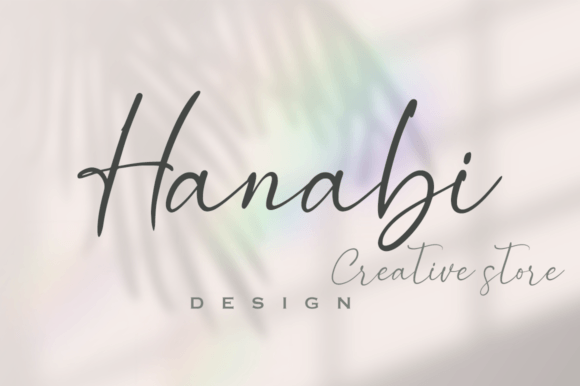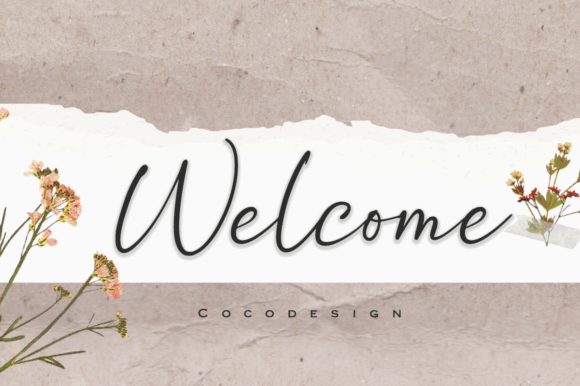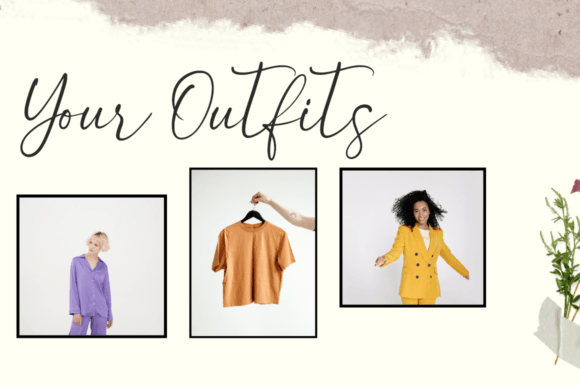
Introduction to Sherina Font
Imagine yourself in a quiet coffee shop, surrounded by the gentle hum of creative energy, as you search for the perfect font to elevate your next project. The hours tick by, and your eyes scan through countless options, but none seem quite right. That’s when you stumble upon the Sherina Font – a masterpiece of handwritten design that leaves you breathless.
This exquisite font is more than just a pretty face; it’s a design resource that will transport your creative projects to new heights. With its classy calligraphic influences and contemporary feel, the Sherina Font is the perfect blend of high-quality design and versatility. Whether you’re working on a free download or a paid project, this font is sure to make your work stand out.
With a transparent background and endless creative possibilities, the Sherina Font is an invaluable asset for designers looking to take their work to the next level.
Key Features of Sherina Font
- High-quality, elegant design suitable for creative projects and artistic expressions
- Transparent background, allowing for seamless integration with images and other design elements
- Designed with a unique, modern aesthetic, perfect for use in various design applications, from branding to digital art
- Includes a range of characters and glyphs, making it suitable for use in both Latin and Cyrillic languages
Honest Review: Sherina Font
As a designer, I’m always on the lookout for high-quality design resources to elevate my creative projects. Recently, I stumbled upon the Sherina Font, and I must say it’s been a pleasant surprise.
Here’s what I like about the Sherina Font:
- ✨ High-quality font with crisp and clear typography
- ✨ Transparent background, making it easy to use in any design project
- ✨ Beautiful, elegant script font perfect for creative projects
- ⚠️ Limited font variations – only a few styles to choose from
Overall, I’m impressed with the Sherina Font’s design and quality. While it may not be suitable for every project, it’s a great addition to any designer’s toolkit, especially for personal or small-scale creative projects. And the best part? It’s available for free download, making it a valuable resource for designers on a budget.
Sherina Font
Sherina Font is a high-quality design resource that can elevate your creative project to the next level. With its transparent background and unique style, this font is perfect for designers looking to add a touch of elegance to their work.
Using Sherina Font in Design Software
Getting the Most Out of Sherina Font
To get the most out of the Sherina Font, use it sparingly and pair it with other design elements to create a visually appealing design. Experiment with different font sizes, colors, and styles to find the perfect combination for your project.
The Sherina Font is perfect for a variety of design projects, including:
- Branding and logo design
- Editorial and magazine design
Alternatives to Sherina Font
The Great Vibes Font is a beautiful, high-quality script font that is perfect for creative projects. It has a transparent background and is ideal for use in titles, headings, and other design elements. Great Vibes Font is a great alternative to Sherina Font for designers who want a more elegant and sophisticated look.
When to use: Great Vibes Font is suitable for wedding invitations, advertising, and other creative projects where a touch of elegance is needed. It compares to Sherina Font in terms of its high-quality design, but has a more refined and sophisticated feel.
The Pacifico Font is a modern, stylish script font that is perfect for designers who want a unique and creative look. It has a transparent background and is ideal for use in titles, headings, and other design elements. Pacifico Font is a great alternative to Sherina Font for designers who want a more modern and trendy look.